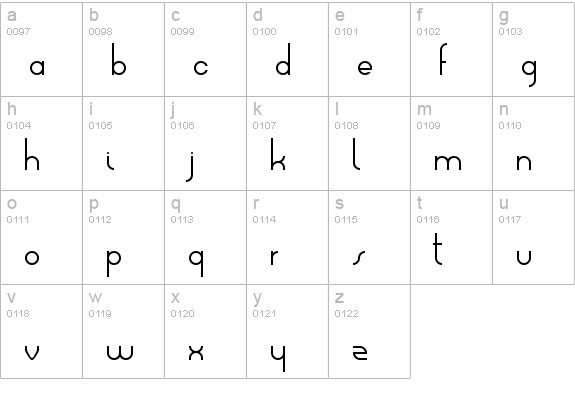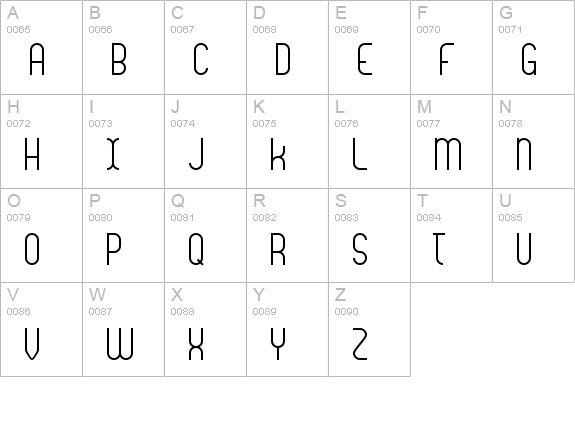
Lois Ann Font Details
Lois Ann font is a beautifully crafted typeface that exudes elegance and sophistication. Its sleek lines and modern style make it perfect for a wide range of design projects, from branding to editorial design. This versatile font offers a perfect balance between classic and contemporary design elements, making it suitable for both print and digital applications. What sets Lois Ann font apart is that it is available for free download at FontsMarket.com. This means that designers and creatives can easily access this stunning font without any cost, making it a valuable addition to any font library. With its clean and polished look, Lois Ann font is sure to elevate any design project and leave a lasting impression on viewers.